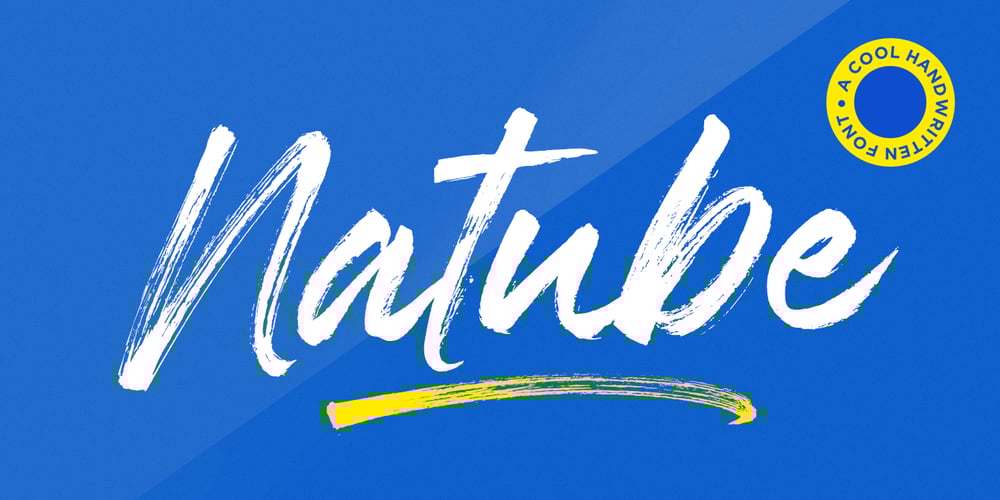
Natube Font Family was designed by Mauli Zari and published by Dhan Studio. Natube contains 2 styles and family package options. Natube is a font that is scratched with a brush pen, to get a natural texture, so this font will display the characteristics of the hand. This font is very suitable for a variety of places such as clothing, poster, tittle books, stationery designs, quotes, branding, logos, invitations, greeting cards, t-shirts, packaging designs and more.